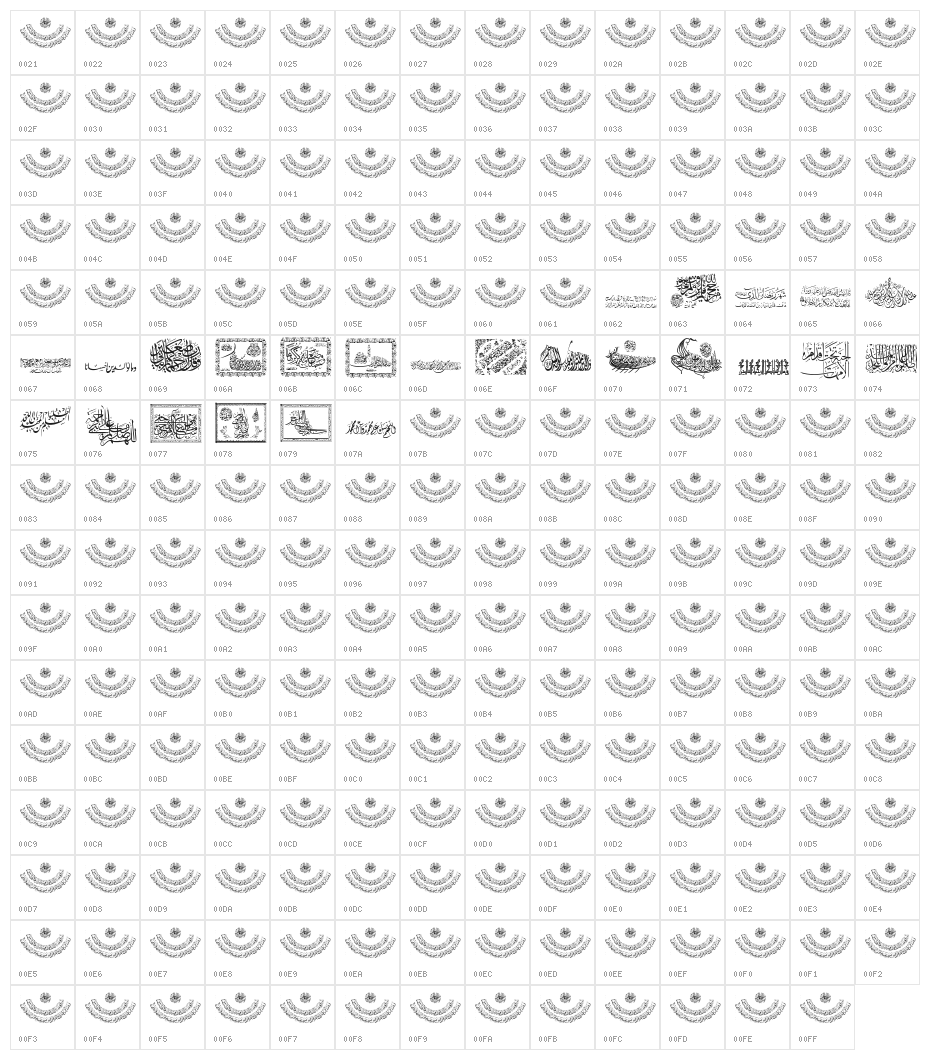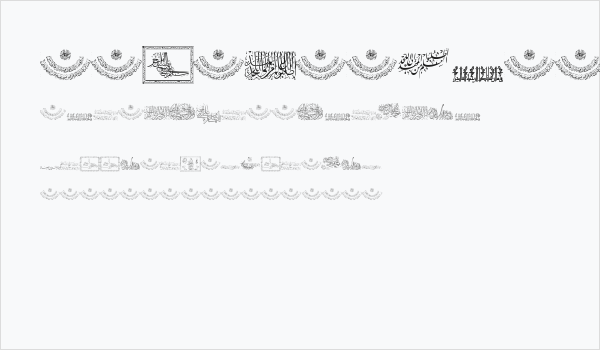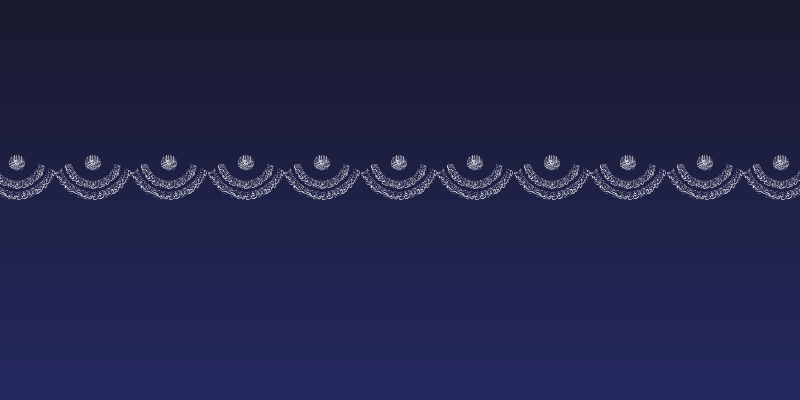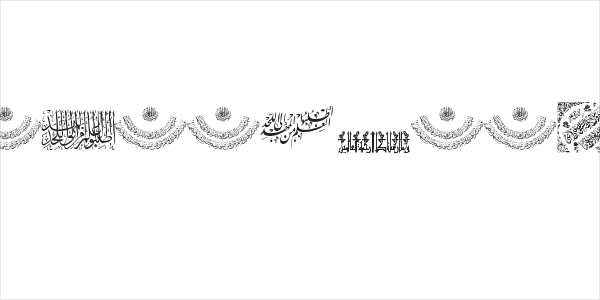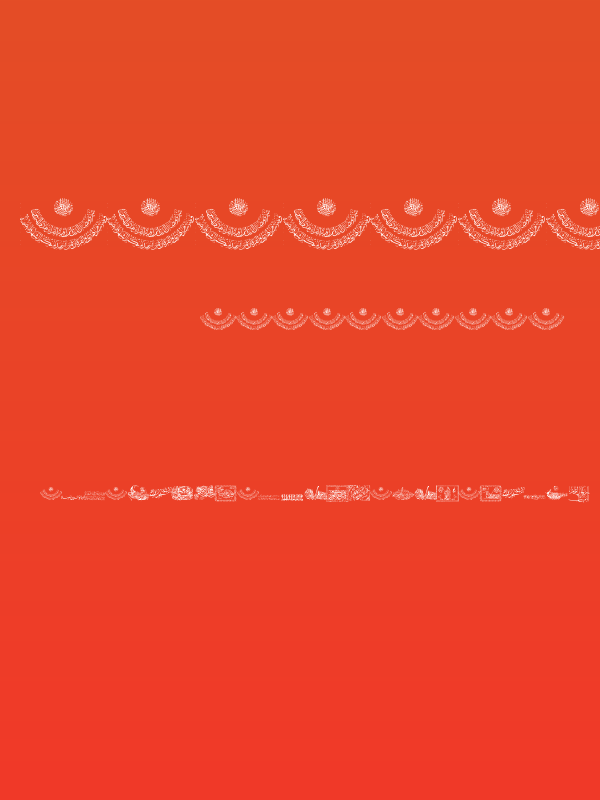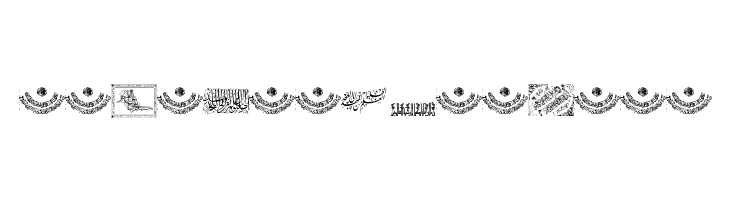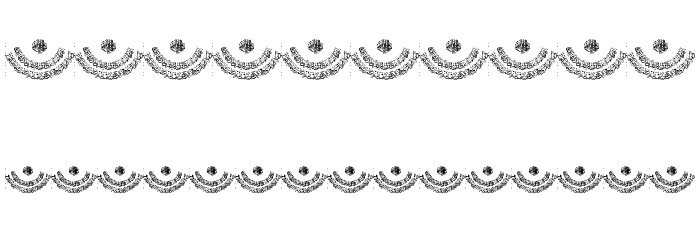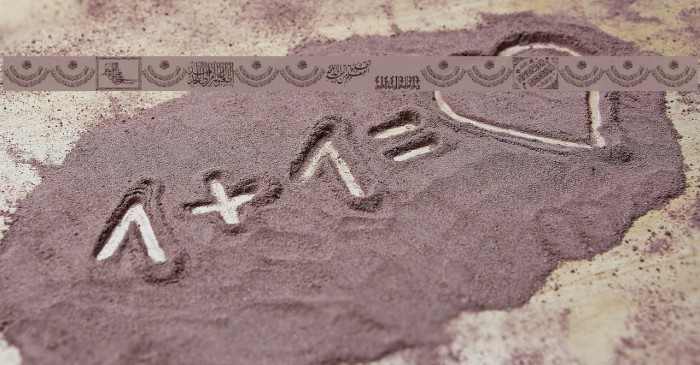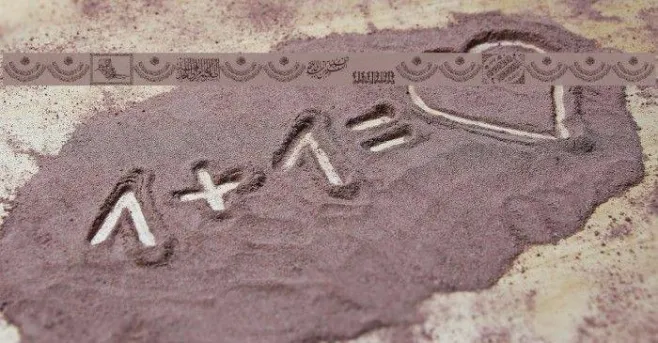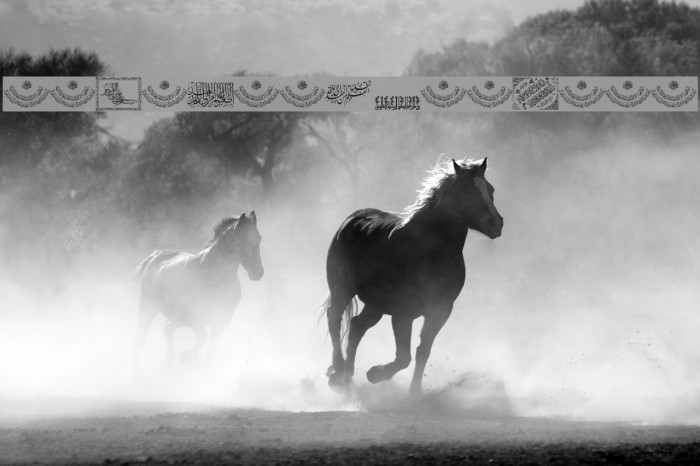
Aayat Quraan 17 Font
Aayat Quraan 17 Description
This is a decorative Arabic script with intricate ornamental borders and calligraphic elements, featuring religious or Quranic text. The design includes elaborate flourishes and embellishments, with some sections framed or boxed, and additional motifs such as birds and geometric patterns.
| Overall Style | Decorative, Traditional, Religious |
| Use Case | Religious texts, Decorative headings, Art pieces |
| Proposed Projects | Religious publications, Quranic manuscripts, ceremonial documents, decorative art, Islamic event invitations. |